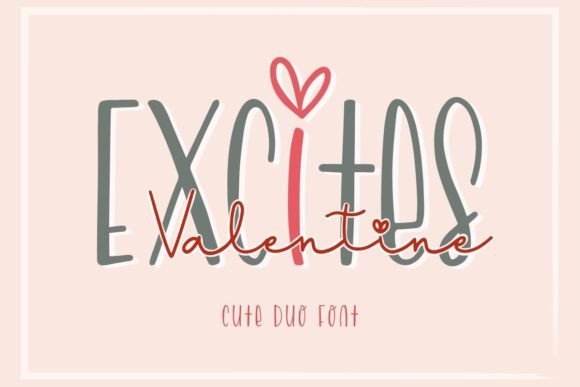
Excites Valentine Duo Font is a must-have for those who are looking for a unique and eye-catching font style for their website design. This script font family was created by AnningArts and is designed to capture the hearts of those who love cute handwritten fonts.
With the ability to bring your creative ideas to life, Excites Valentine Duo Font is perfect for those who want to stand out from the crowd. Its masterful design and charming aesthetic make it an ideal choice for any project that requires a touch of elegance and sophistication.
The sans and script duo is a perfect combination of modern and classic, which makes it versatile enough to be used in a wide range of applications. Whether you are designing a website, creating a logo, or working on a social media post, this font duo is sure to impress.
The font family is perfect for any project that requires a touch of personality and style. Its smooth curves and handwritten feel make it a popular choice for those who want to create a unique and personalized look for their brand.
In summary, Excites Valentine Duo Font is the perfect choice for anyone looking for a font style that is both elegant and cute. It has been designed with care and precision to ensure that it is both visually appealing and easy to read. Whether you are a beginner or an experienced designer, this font duo is sure to help you elevate your projects to the next level.